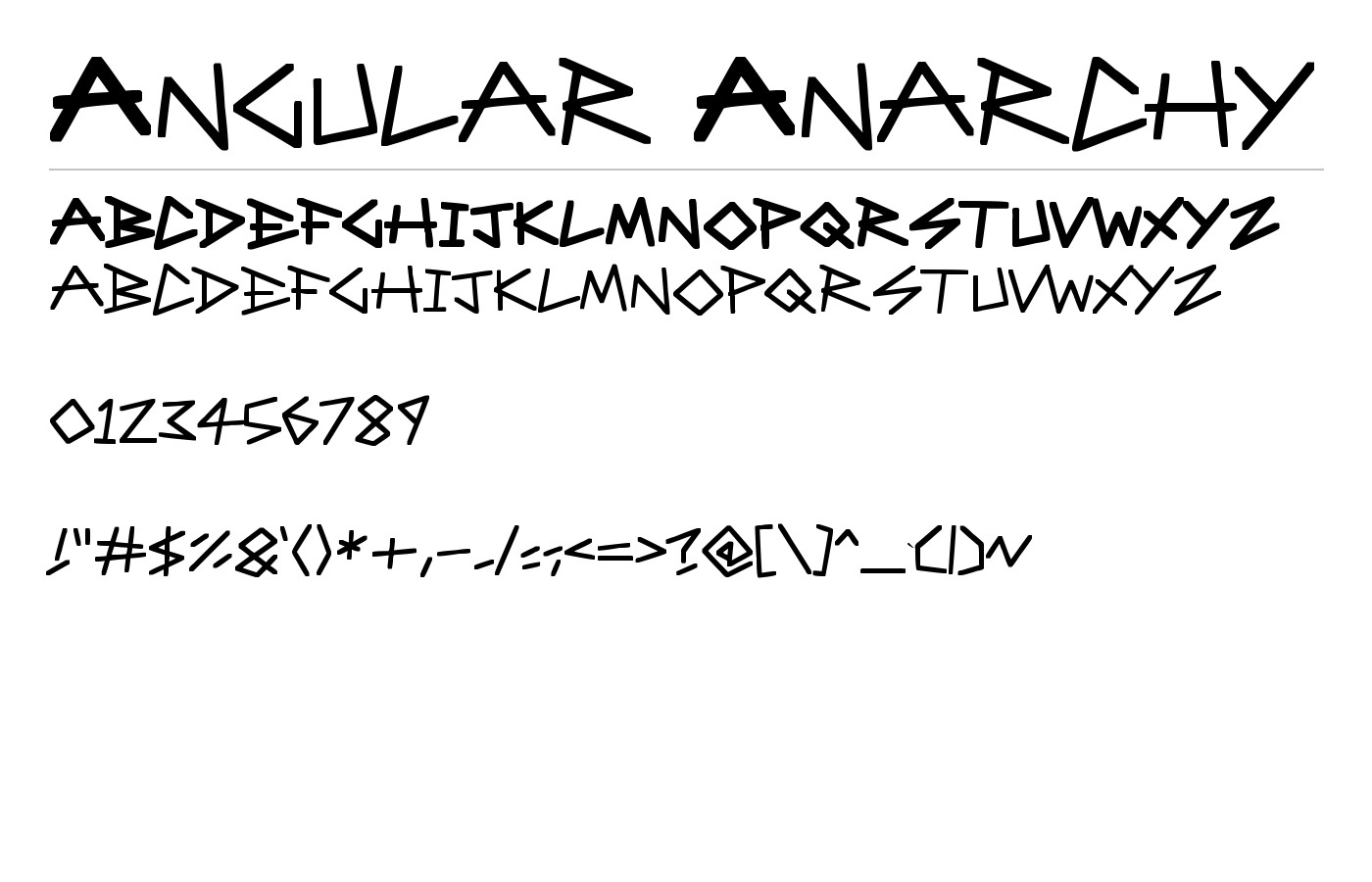
Angular Anarchy is a bold, edgy sans serif font with sharp, angular strokes that create a rebellious and energetic vibe. Its uneven, hand-drawn style adds a playful yet aggressive personality, making it perfect for creative projects, posters, and branding that aim to stand out with a dynamic, unconventional look. This font works best in large sizes where its strong character and distinctive shapes can be fully appreciated.
Angular Anarchy Font
About Angular Anarchy Font